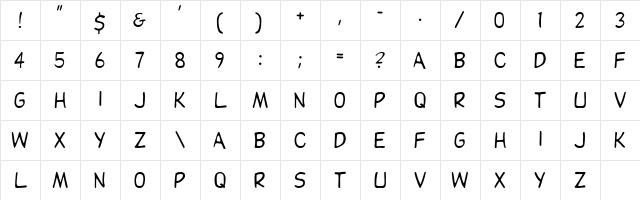
DupuyRE Gular Medium
Design Context for DupuyRE Gular Typeface
DupuyRE Gular is a composed and adaptable typeface that performs quietly and consistently across a wide range of design contexts.